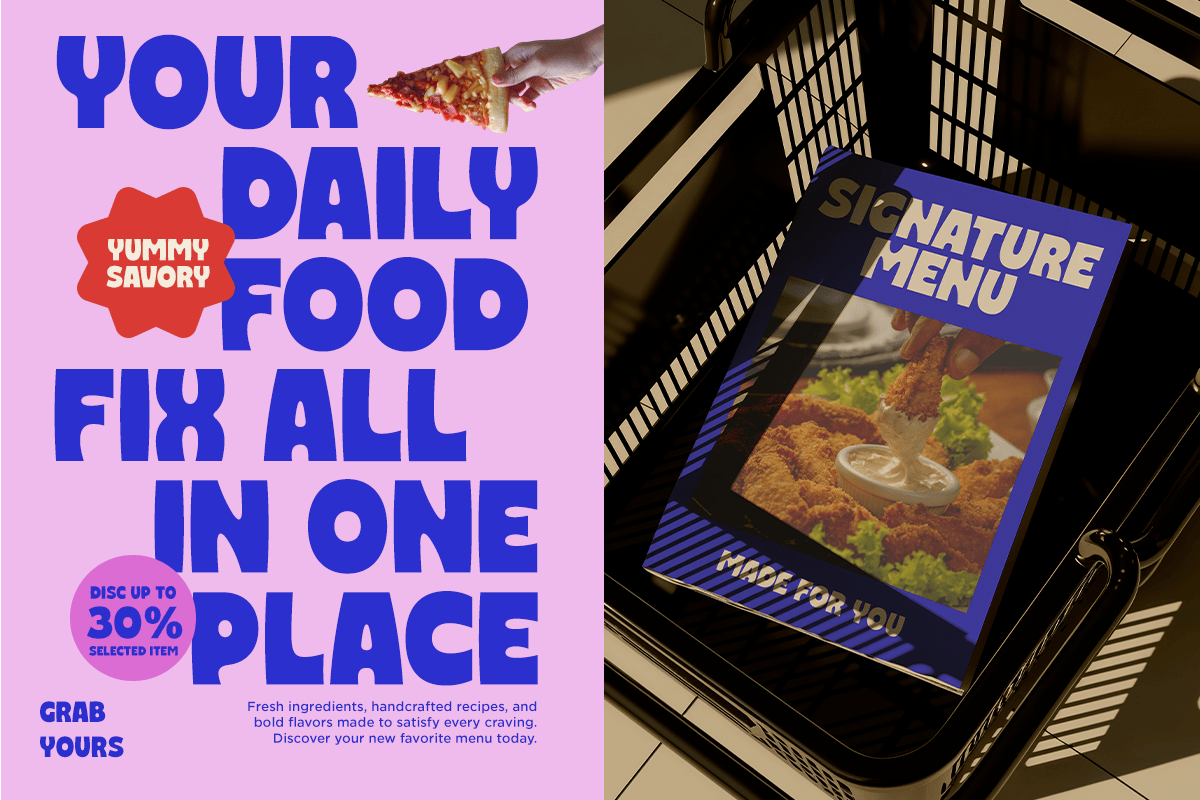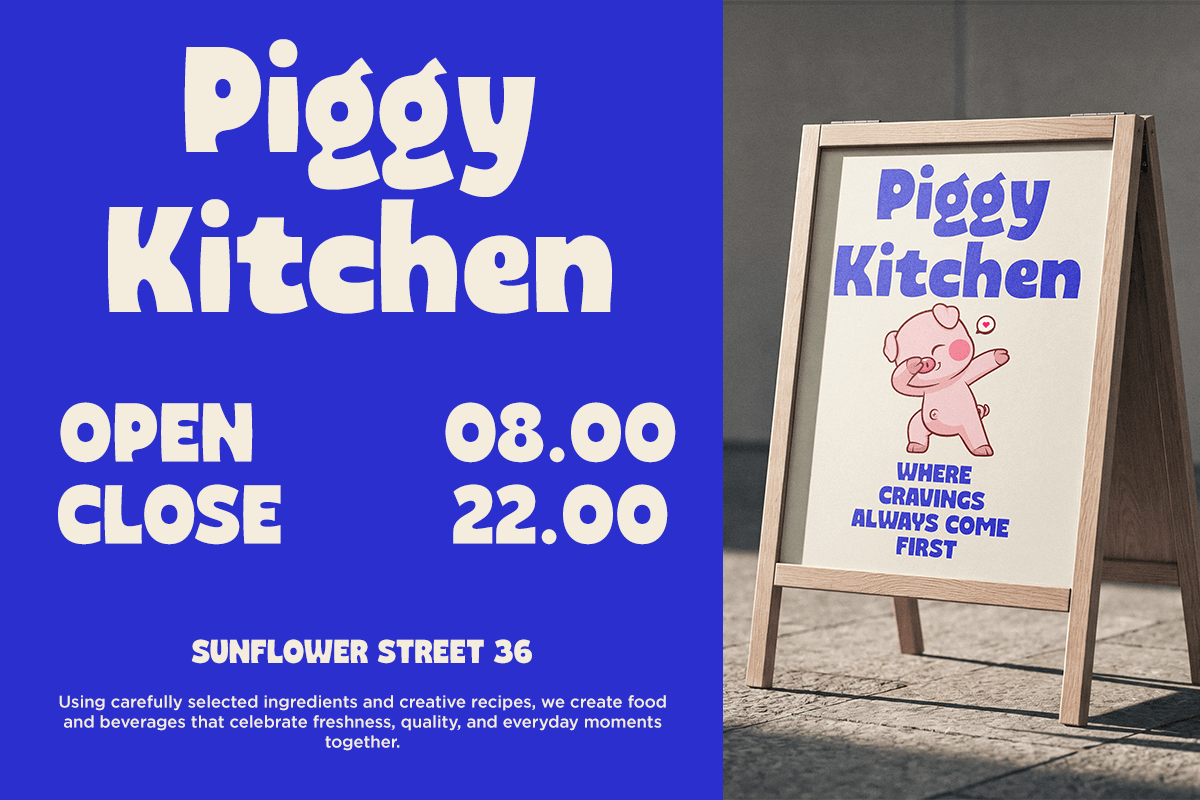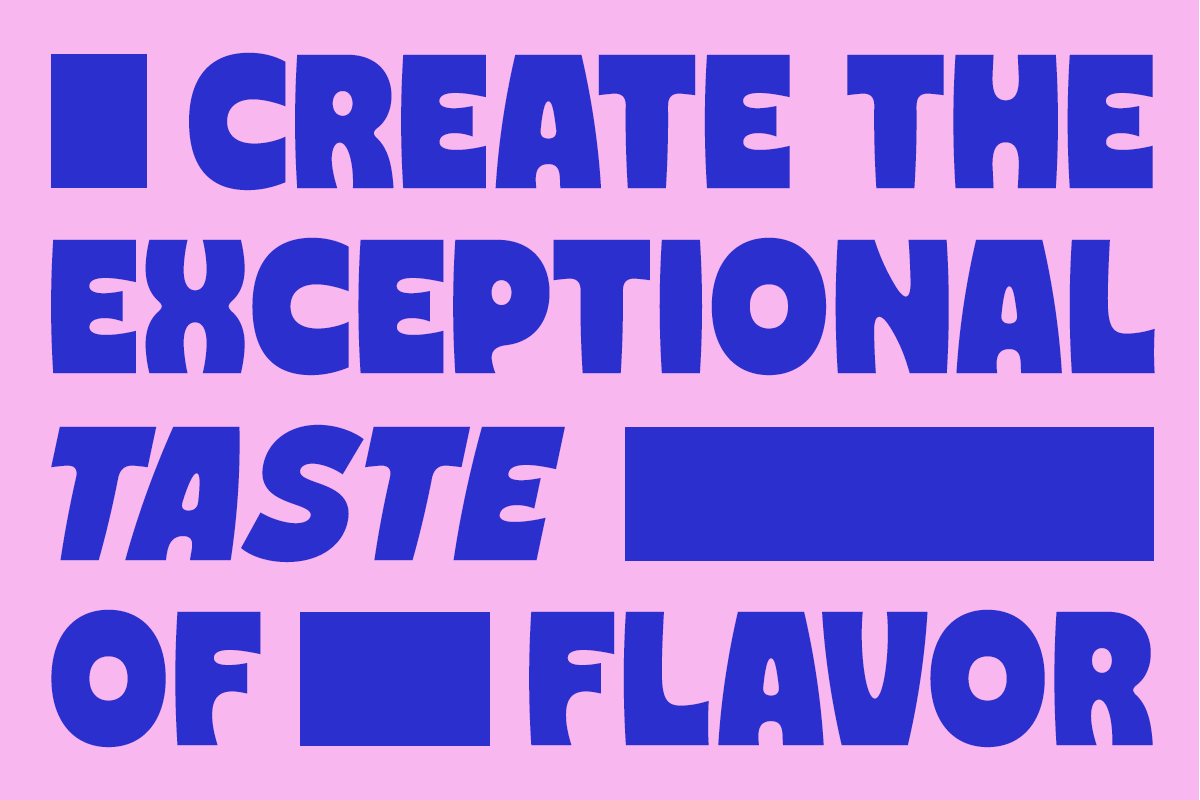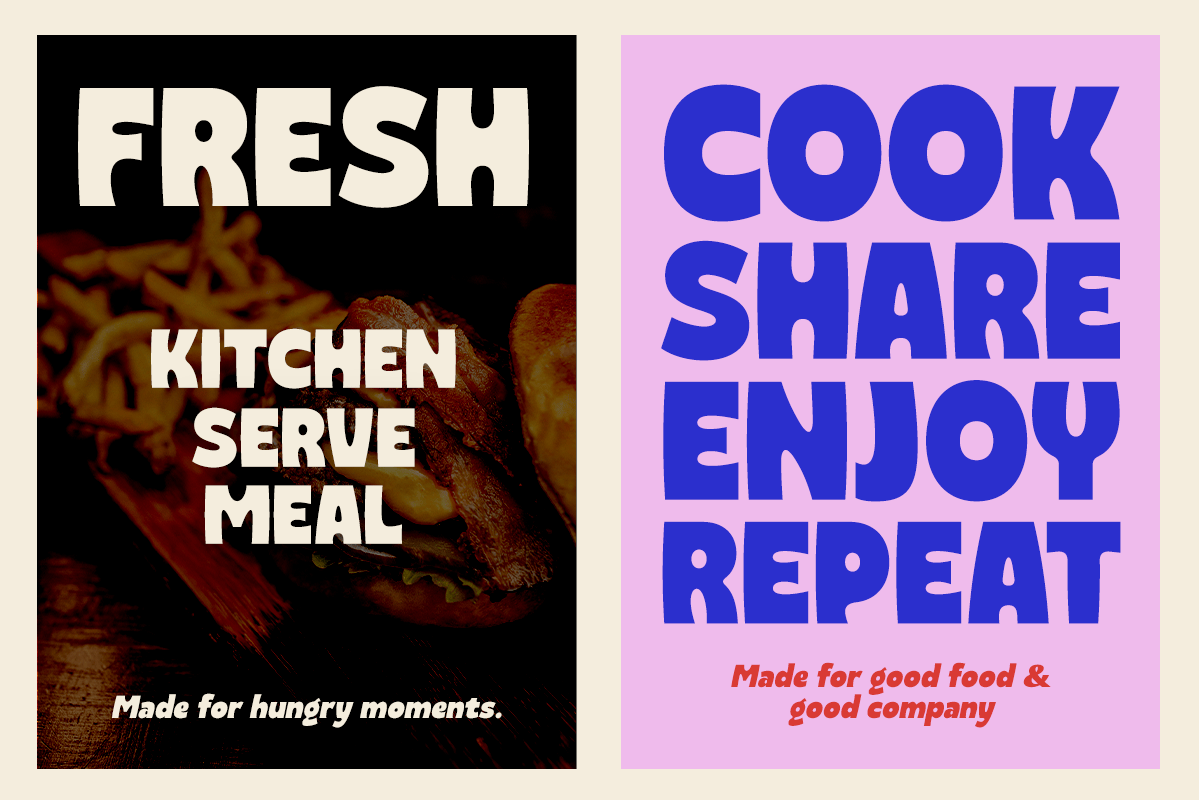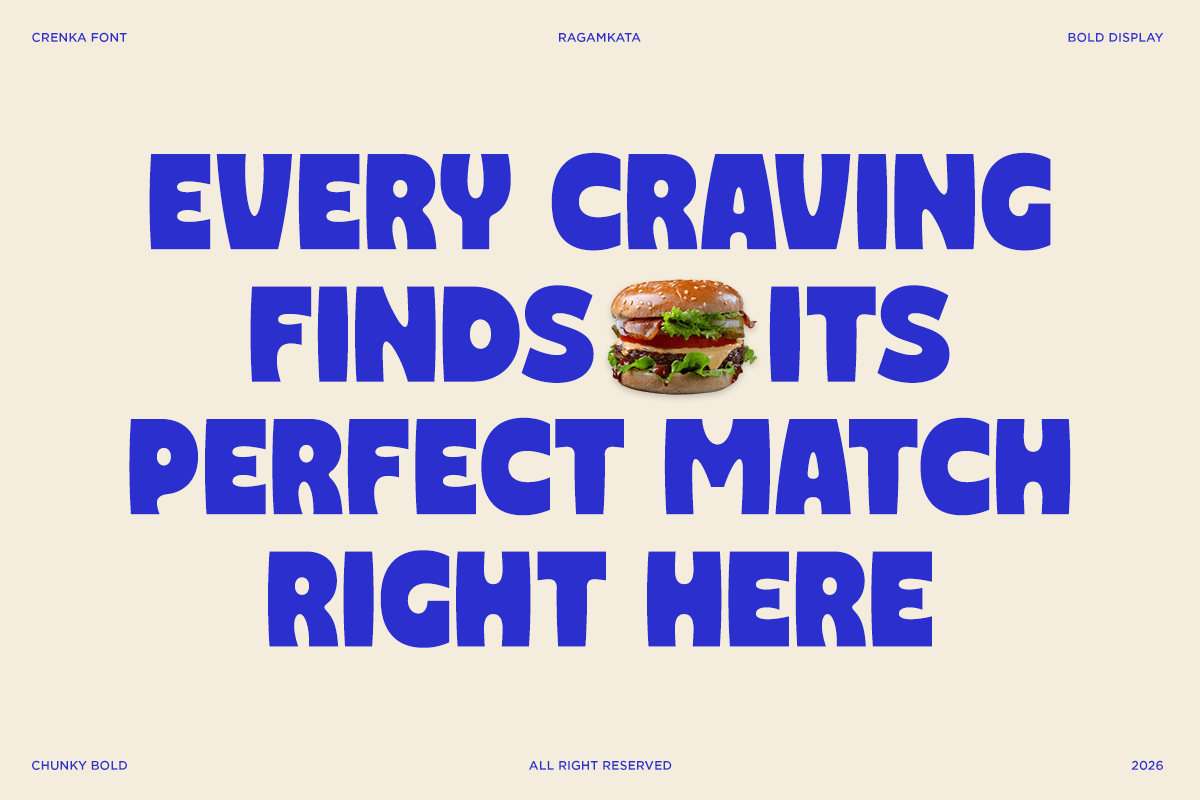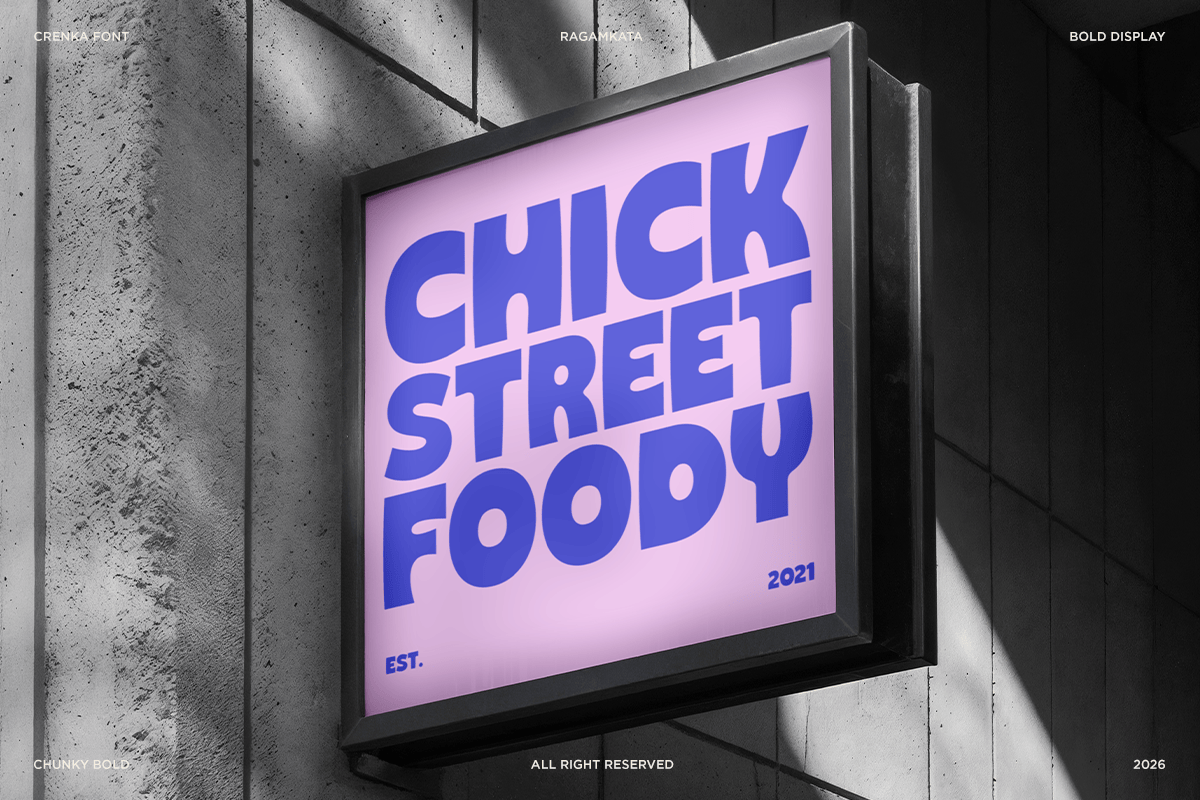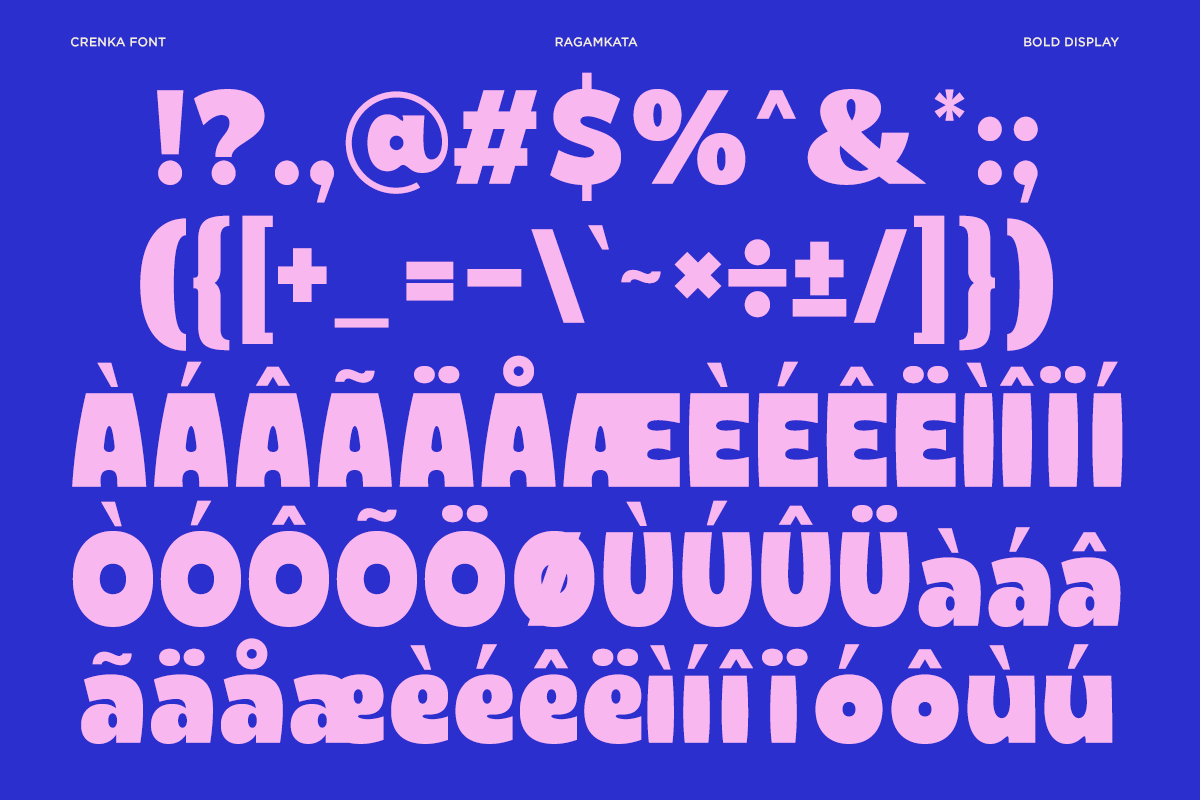
Crenka – Bold Food Branding Font
Crenka is a bold and playful sans display font designed to bring a fun, energetic personality to your creative projects. Its chunky, rounded letterforms create a friendly and eye-catching appearance that stands out beautifully in large headlines and display typography.
Perfect for food branding, restaurant identities, cafe menus, packaging, posters, signage, advertising, and social media designs. Crenka adds a cheerful and expressive touch to culinary projects, making it especially suitable for brands that want to feel modern, approachable, and memorable.
Use Crenka for logos, headlines, promotional graphics, editorial layouts, labels, merchandise, stickers, and other bold visual applications. Its distinctive character makes it a versatile choice for designers looking to create playful typography with strong visual impact.
– Regular and Italic
– Uppercase and Lowercase
– Number, Symbol, and Punctuation